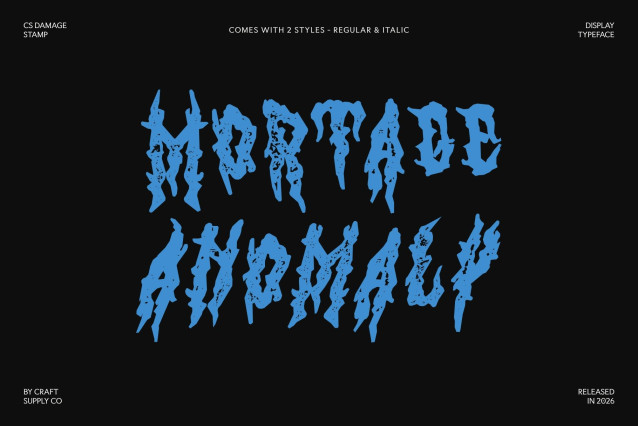
CS Damage Stamp Font
CS Damage Stamp – Black Metal Font: Bold Rebellion and Intensity
Black Metal Display Font with Aggressive Aesthetics
This is a fierce display typeface that channels the raw, intense energy of black metal culture. The added stamp effect introduces a distressed, worn texture that enhances its underground attitude, giving the font a gritty, vintage feel while preserving its extreme and rebellious spirit.
Sharp and Jagged Letterforms for an Intense Look
The letterforms are sharp, fragmented, and chaotic designed to command attention instantly. Angular shapes and broken structures create a sense of darkness and power, while the stamped texture amplifies the rough, handcrafted character. This combination makes the font feel even more aggressive and atmospheric.